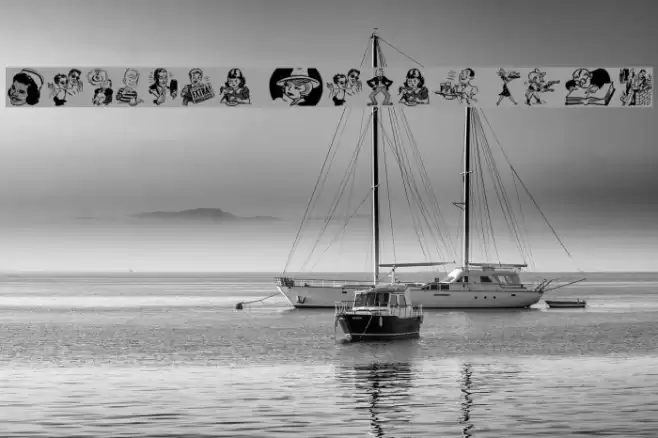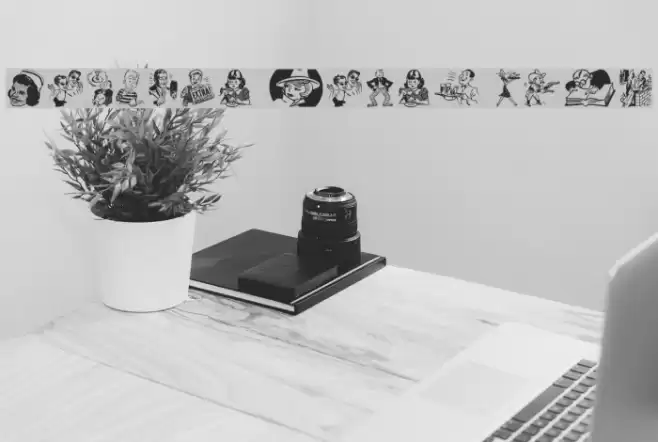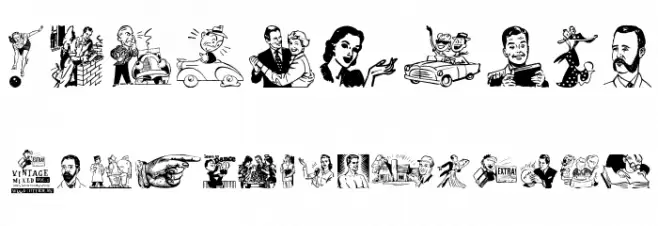
Vintage Mixed vol1 Font
Vintage Mixed vol1 Description
A collection of black-and-white vintage-style illustrations featuring people, gestures, and objects in a mid-20th-century comic or advertising art style. The images are detailed, expressive, and evoke a retro, nostalgic feel reminiscent of old magazines and advertisements.
Retro illustrative dingbat set with vintage comic and advertising motifs from Uncategorized fonts.
- Proposed Projects: Posters, flyers, retro branding, editorial illustrations, packaging, invitations, social media graphics.
- Overall Style: Vintage, Decorative
- Use Case: Decorative elements, spot illustrations, branding, themed events.